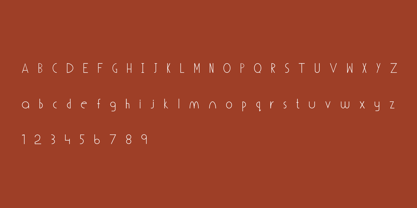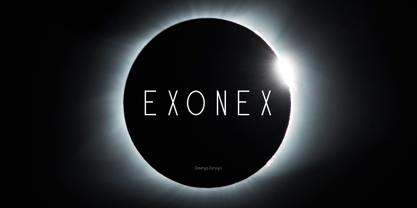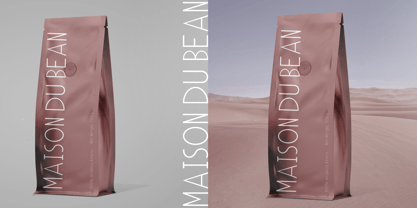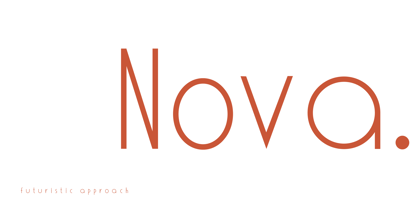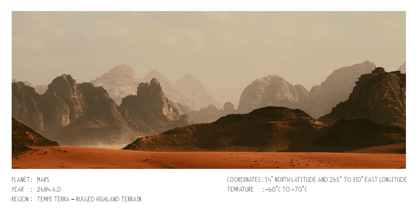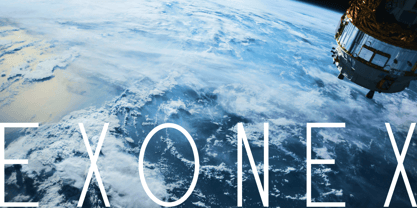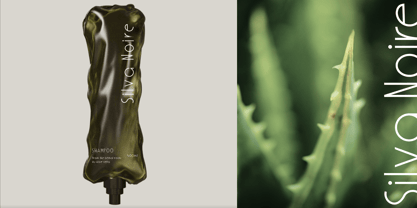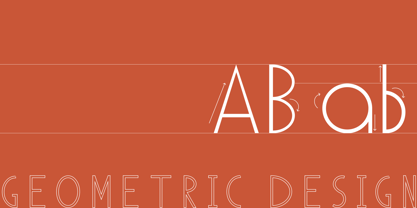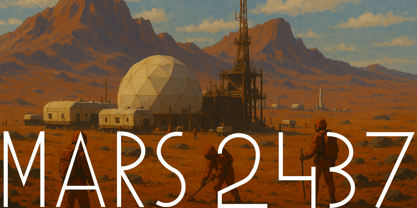
Exonex
by Omega Design
The Exonex Font Family was designed by Danesh Thangaraja and published by Omega Design. Exonex contains 1 styles. More about this family
The font featured in this design showcases a highly stylized, ultra-condensed sans-serif aesthetic with a futuristic edge. Composed entirely of uppercase characters, it relies on sharp angles, minimal curves, and geometric precision to deliver a bold, commanding presence. The uniform spacing and rigid structure evoke a sense of digital order, often associated with sci-fi, cyberpunk, or high-tech branding. This typeface is ideal for environments where a modern, cutting-edge feel is required—whether in logo designs, esports visuals, or tech-forward editorial layouts. Its sleek, mechanical look makes a strong statement while maintaining clarity and structure.
Designers: Danesh Thangaraja
Foundry: Omega Design
Exonex